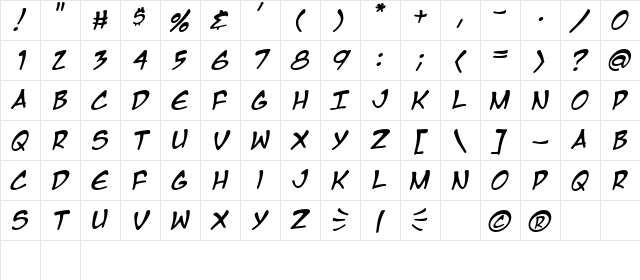
Manga Temple Italic Free Font
Manga Temple Italic
Manga Temple Family
Design Context for Manga Temple
Manga Temple is a composed and adaptable typeface that performs quietly and consistently across a wide range of design contexts. The slanted form adds forward momentum and visual energy.
Pro Tip: Use Manga Temple for emphasis, pull quotes, and subheadings where its slanted energy can add rhythm to the layout.